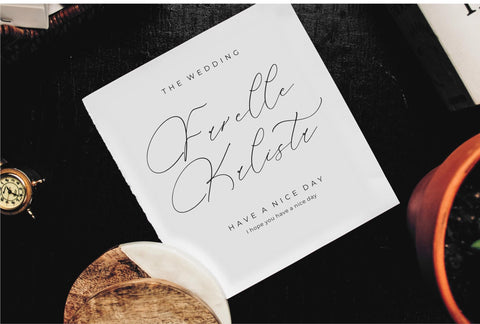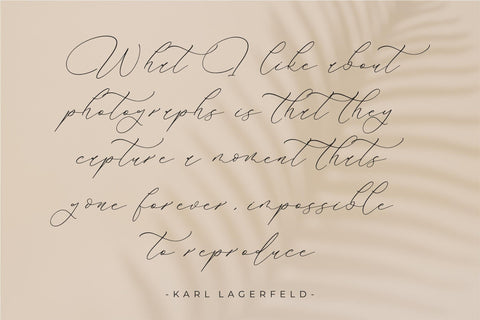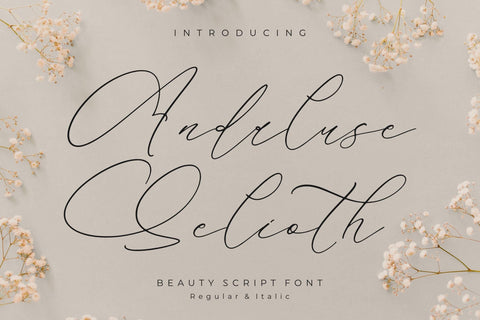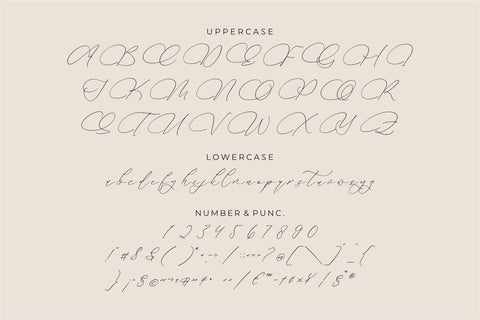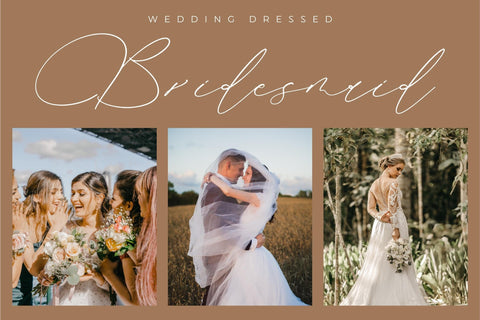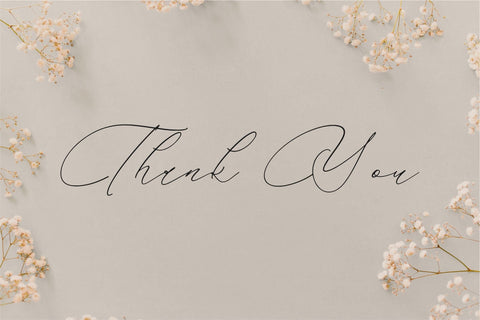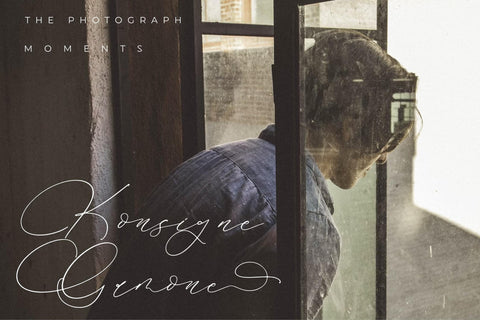
Andaluse Selioth - Beauty Script Font
Proudly present Andaluse Selioth - Beauty Script Font , created by Storytype,
A luxury script that has own unique style & modern look.